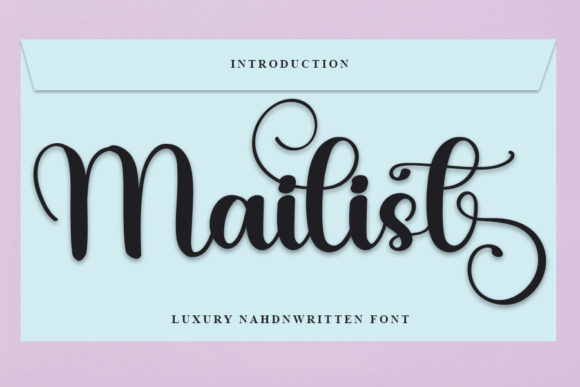
Journey into the Realm of Mailist: Where Classic Meets Contemporary for Primary School Excellence
In the world of education, where first impressions matter, Mailist Font emerges as an extraordinary player, ready to transform your primary school projects into captivating masterpieces. This trendy handwritten font, meticulously crafted by Inermedia STUDIO, blends timeless calligraphy with a contemporary flair, promising elegance and class in every design endeavor.
Mailist, the perfect font for primary school, is more than just a collection of letters and symbols; it's an expression of creativity, a catalyst for imagination, and an enabler of effective communication. Whether it's adorning textbooks, worksheets, posters, or presentations, Mailist elevates your educational content, captivating young minds and leaving an unforgettable impact.
Experience the Ease and Accessibility of Mailist's PUA Encoding
In a world where time is precious, Mailist's PUA encoding comes as a blessing. This ingenious feature allows you to effortlessly access all the glyphs and swashes, liberating your creativity and empowering you to add intricate details and artistic flourishes to your designs with remarkable ease.
Immerse Yourself in a World of Creative Possibilities
With Mailist Font as your creative companion, the possibilities are limitless. Craft captivating lesson plans that spark curiosity and engagement. Design vibrant worksheets that transform learning into an adventure. Create stunning posters that ignite imagination and inspire dreams. Mailist's versatility knows no bounds, making it the ultimate font for any primary school project.
Craft a Legacy of Excellence in Primary School Education
Mailist Font is the perfect tool for educators who aspire to create a legacy of excellence in primary school education. Its timeless design transcends trends, ensuring your materials remain relevant and engaging year after year. With Mailist, you'll instill a love for learning in young minds, fostering a lifelong appreciation for the written word.